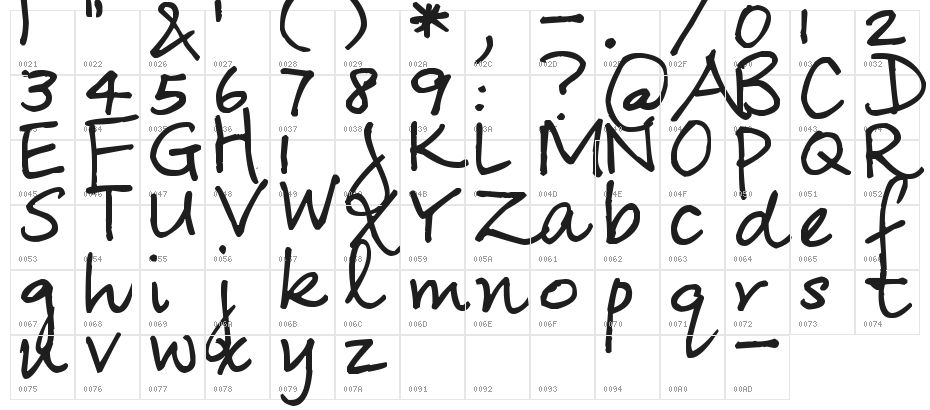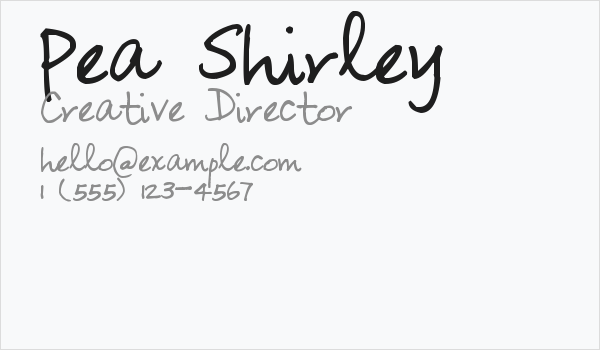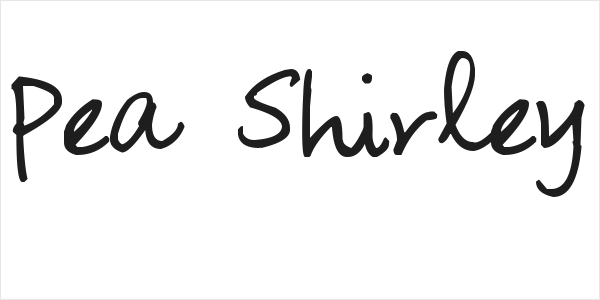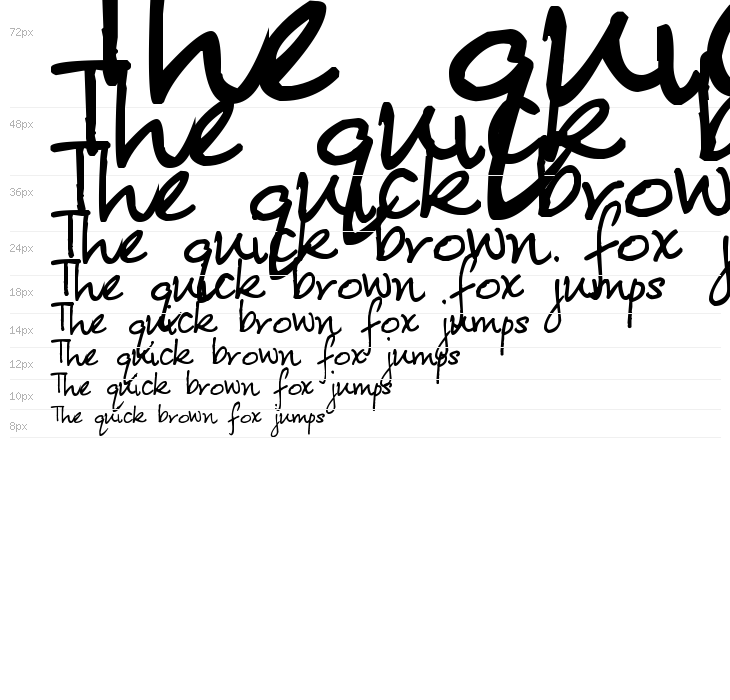
Pea Shirley Font
Pea Shirley Description
This font exudes a playful and casual handwritten style, characterized by its fluid and organic strokes. The uppercase letters maintain a consistent height, while the lowercase letters exhibit a charming irregularity, adding to its informal appeal. The numbers are bold and slightly rounded, ensuring readability. Special characters are creatively integrated, maintaining the font's overall whimsical aesthetic. The strokes vary in thickness, providing a medium contrast that enhances its handwritten feel. It's perfect for projects that require a personal touch, such as greeting cards, invitations, or casual branding.
| Use Case | Headlines, Informal text, Personal projects |
| Proposed Projects | Ideal for greeting cards, invitations, personal branding, and casual design projects. |